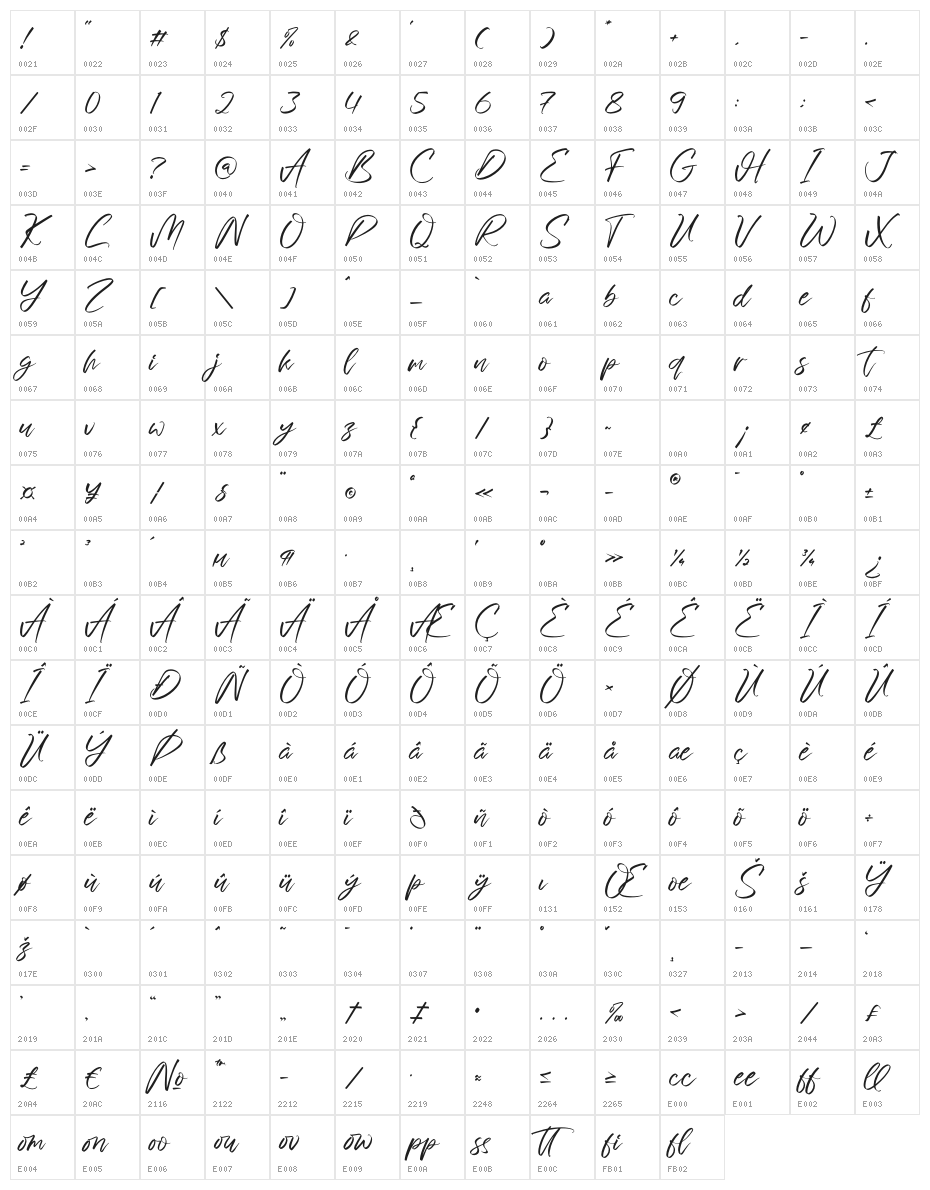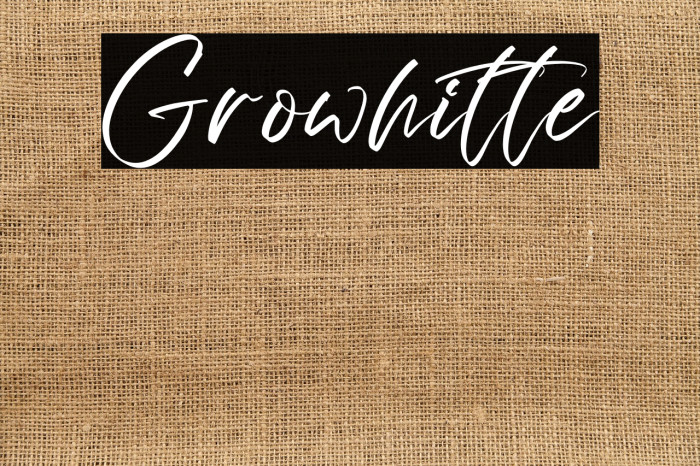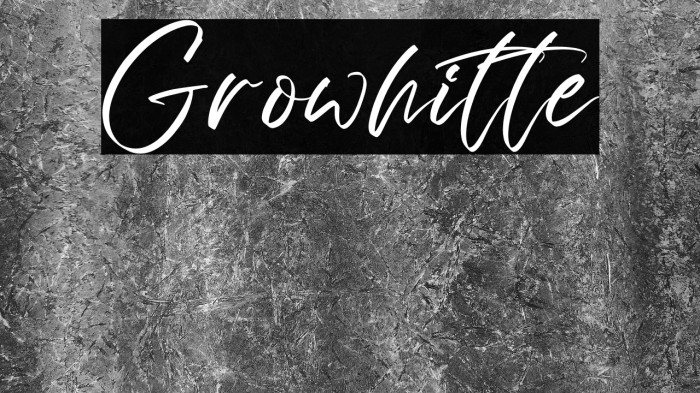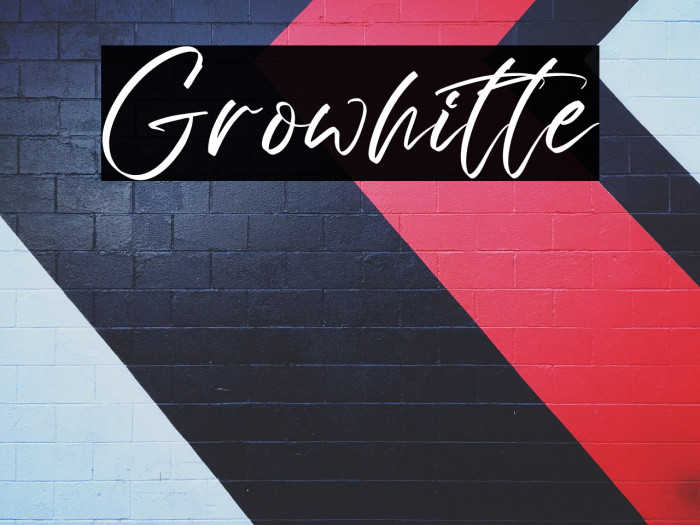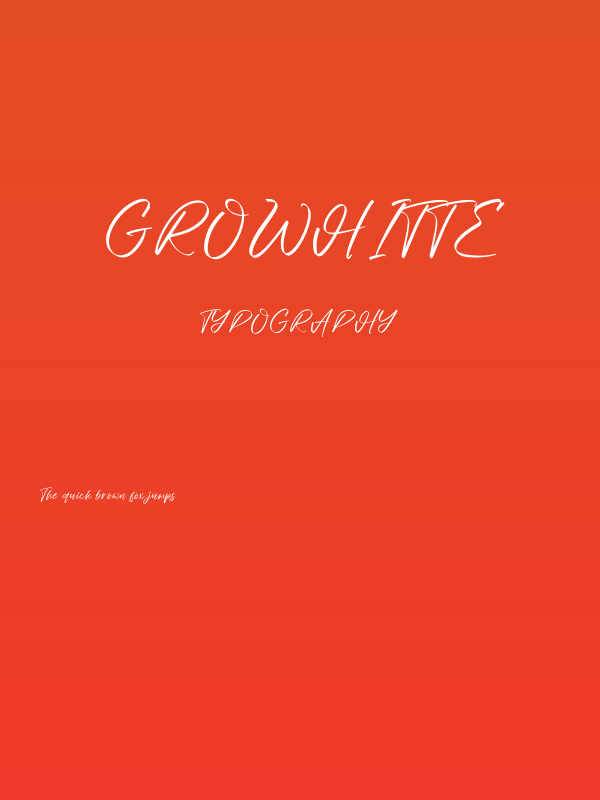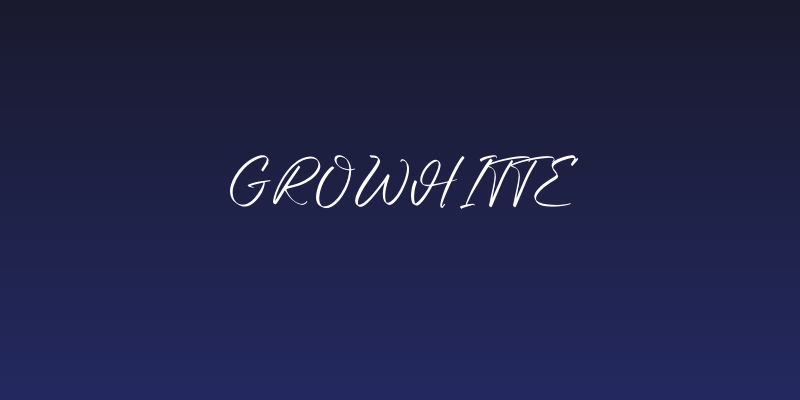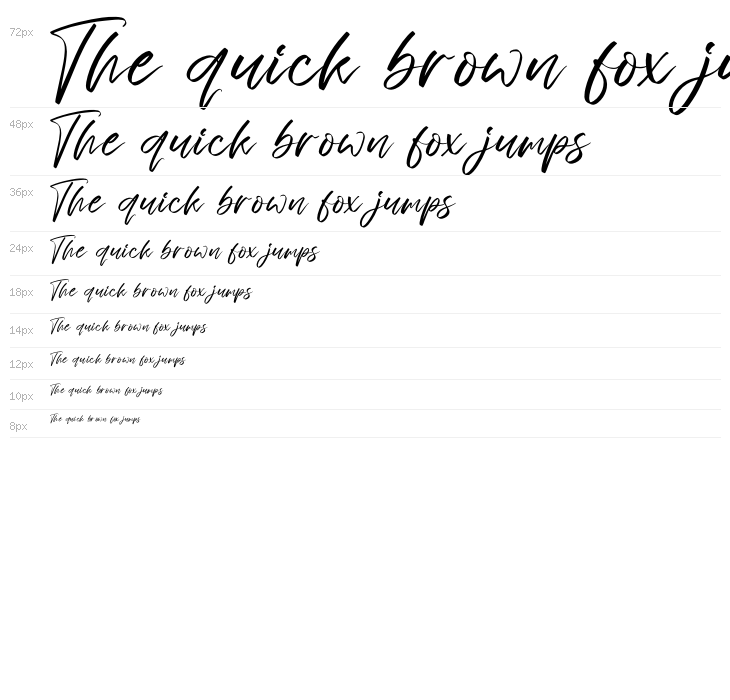
Growhitte Font
Growhitte Description
This elegant script font features a fluid and graceful style, characterized by its smooth, flowing lines and slight slant. The uppercase letters are distinct with a sophisticated flair, while the lowercase letters maintain a consistent rhythm, enhancing readability. The numerals and special characters are crafted with the same attention to detail, making them seamlessly integrate with the alphabet. The font's overall appearance is both modern and timeless, suitable for a variety of design needs.
| Use Case | Logos, Invitations, Branding |
| Proposed Projects | Ideal for wedding invitations, elegant branding, personal stationery, and high-end product packaging. |